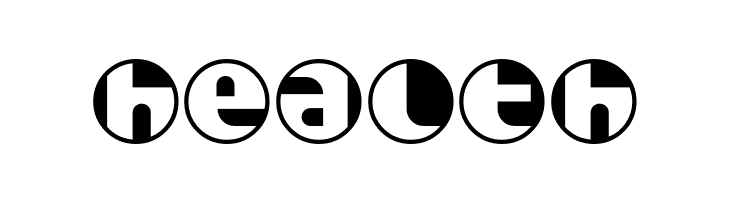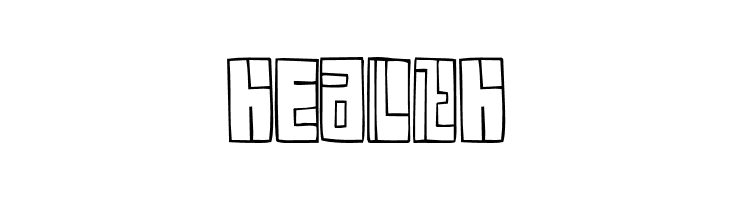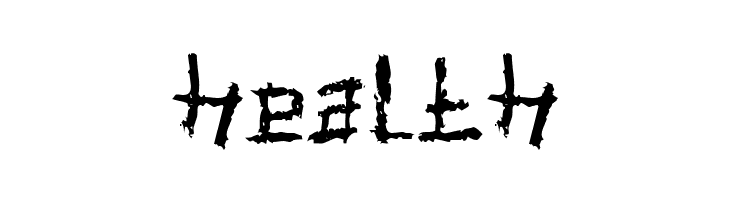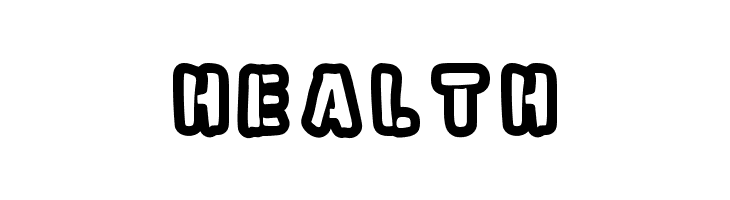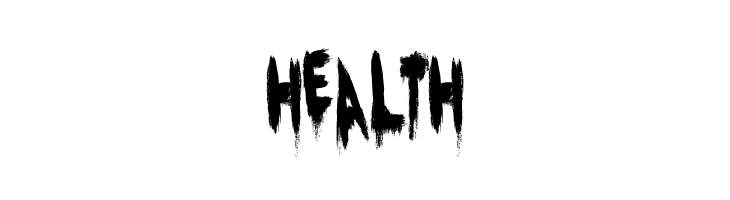
A bold, circular geometric font with high contrast and modern style.
A sleek, thin, and slightly italicized modern font with low contrast.
A bold, boxy font with geometric, rectangular frames around each character.
A rugged, organic font with a wild, hand-drawn appearance.
A bold, outlined font with a playful, retro comic book style.
A bold, brush-textured font with a raw and energetic style.
An ornate and decorative font with intricate, framed initials.